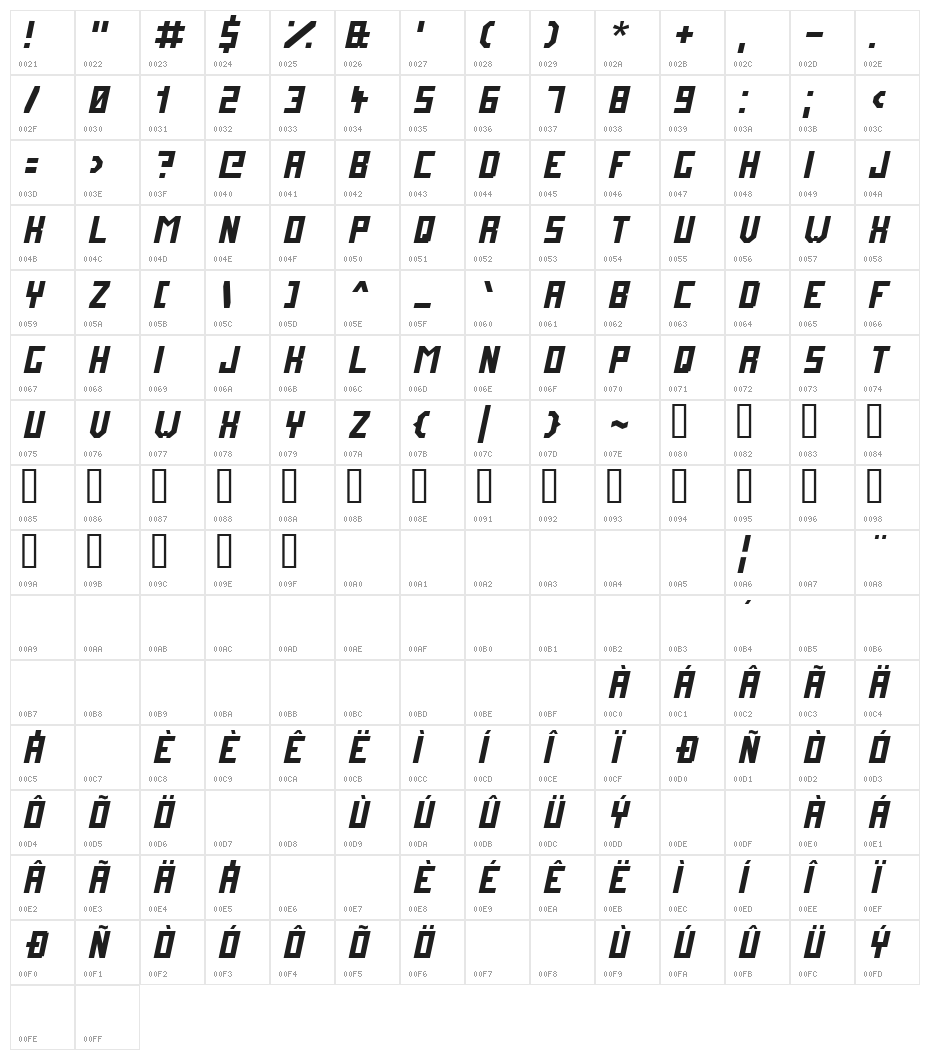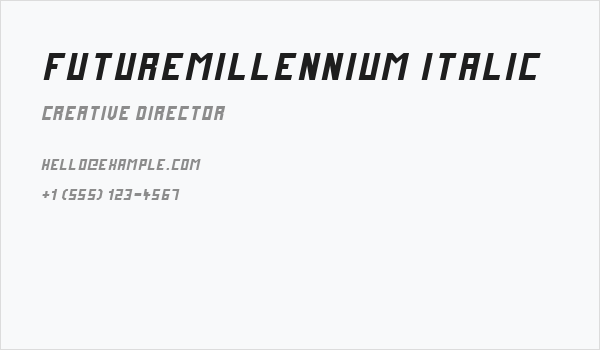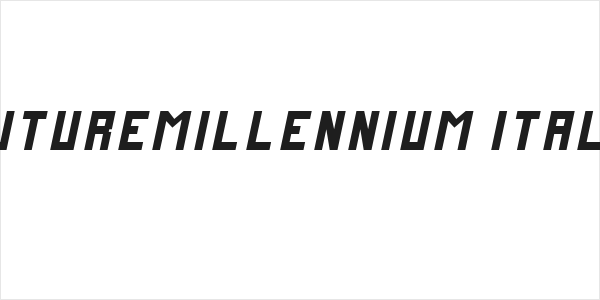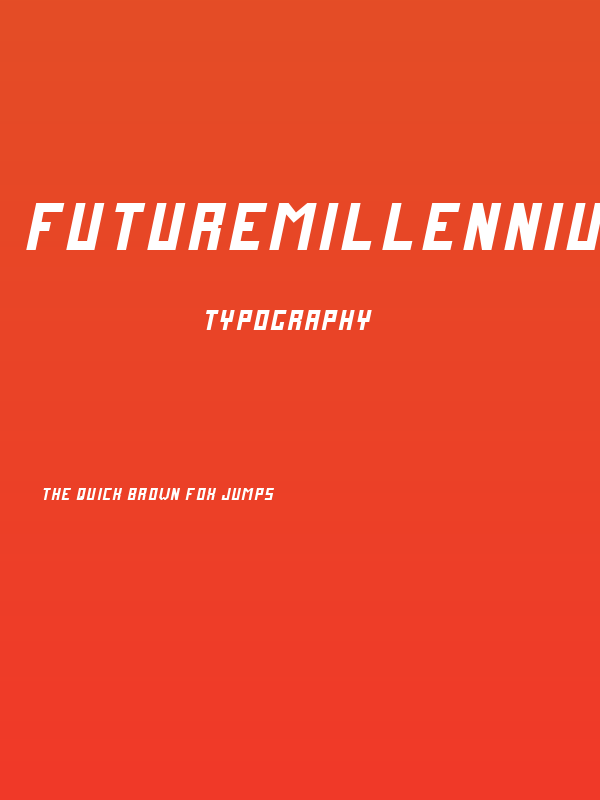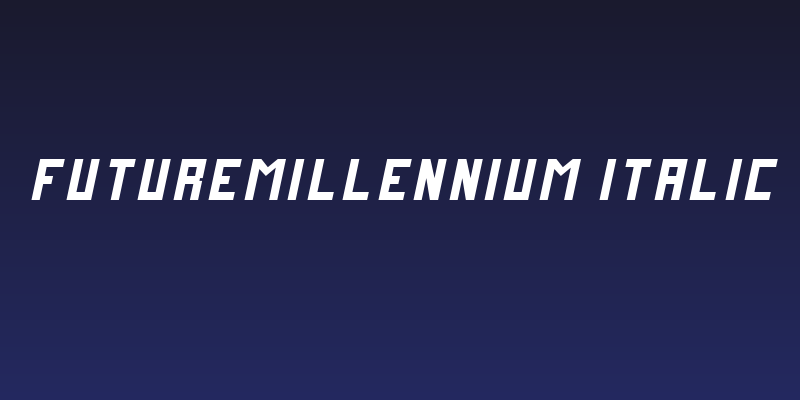
FutureMillennium Italic Font
FutureMillennium Italic Description
This font features a futuristic and angular design, characterized by its sharp edges and geometric shapes. The italic style adds a dynamic and forward-leaning appearance, enhancing its modern aesthetic. Each character is distinct, with a consistent slant that gives the text a sense of motion and speed. The uppercase and lowercase letters maintain a uniform style, with a bold presence that stands out. The numerals and special characters are crafted to match the overall theme, ensuring a cohesive look across all text elements. This font is ideal for projects that require a contemporary and edgy feel.
| Proposed Projects | Ideal for sci-fi themed designs, technology branding, video game titles, and modern advertising. |